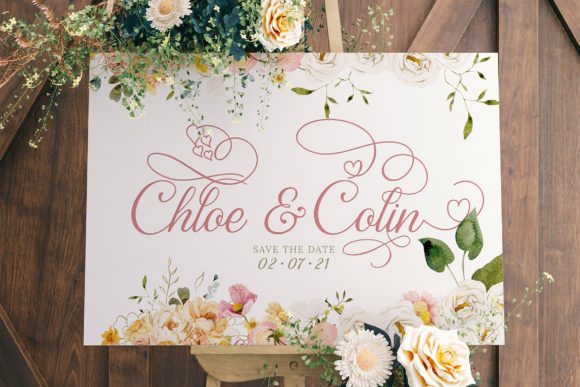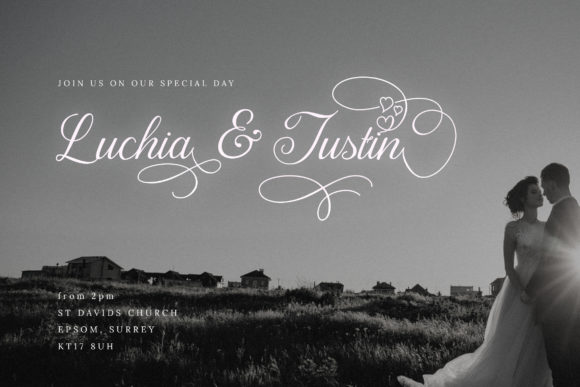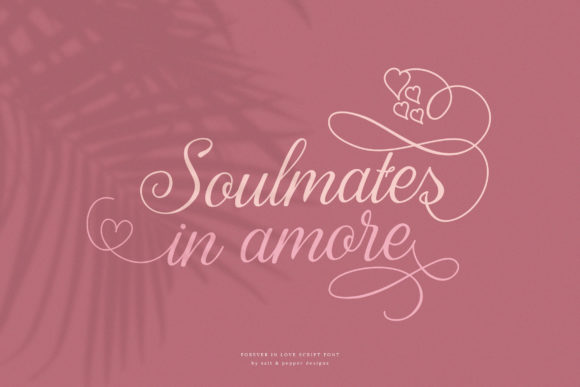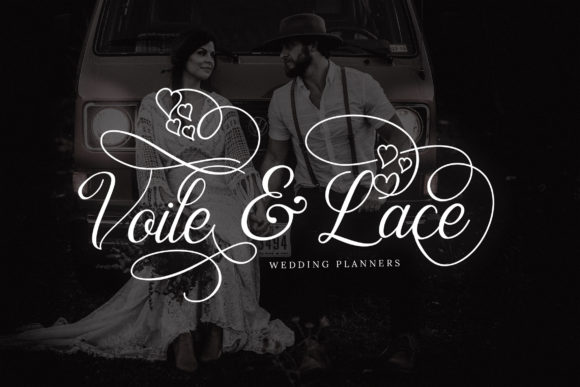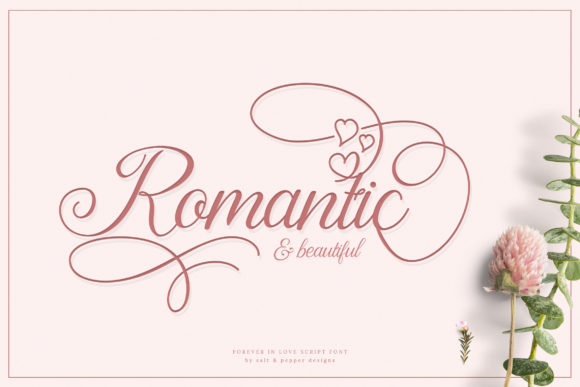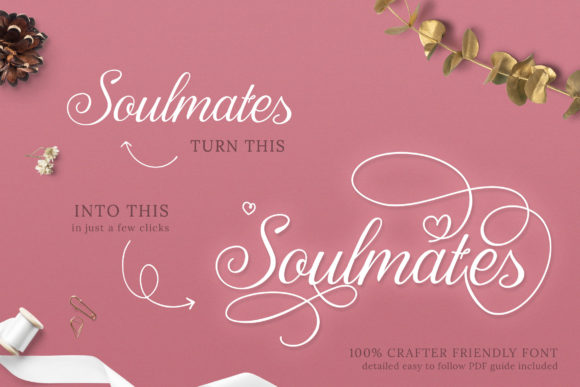
Love at First Sight: Unveiling the Forever in Love Font
Have you ever been lost in a creative moment, pouring your heart and soul into a project, and suddenly, the perfect font appears? It’s as if the universe is guiding your cursor to the perfect match. For many designers, this moment is a game-changer, and for those who’ve discovered the Forever in Love Font, it’s a match made in heaven.
The Forever in Love Font is a luxurious and well-balanced handwritten font, meticulously crafted to add a touch of elegance to any design. Its PUA encoding ensures that all glyphs and swashes are easily accessible, making it a valuable tool for designers looking to add a personal touch to their work. Whether you’re creating a wedding invitation, a romantic card, or a luxury brand’s logo, the Forever in Love Font is sure to leave a lasting impression.
Forever in Love Font Key Features
- Font Family: Forever in Love Font is a beautiful, elegant script font designed for romantic and elegant projects.
- Unique Characteristics: Features flowing connections, elegant swashes, and subtle flair, making it perfect for wedding invitations, love letters, and other romantic designs.
Designer Review: Forever in Love Font
As a designer, I was excited to try out the Forever in Love Font, and I must say it’s a unique addition to any typography collection. ✨ One thing that stands out is its elegant and whimsical feel, perfect for romantic or vintage-inspired designs. The font’s subtle imperfections and ornate details give it a charming, hand-crafted look that’s sure to capture attention.
However, there are some limitations to consider. ⚠️ The font’s complexity can make it difficult to use in smaller sizes or on low-resolution displays, as the intricate details may become lost or blurry. Additionally, the font’s irregularities can sometimes make it challenging to achieve precise alignment or formatting.
Overall, I would give the Forever in Love Font a solid 3.5 out of 5 stars. While it’s a beautiful and unique font, its limitations may make it less suitable for certain design applications. That being said, it’s still a great choice for designers looking to add a touch of romance or whimsy to their projects.
Pros:
- Unique, elegant design
- Perfect for romantic or vintage-inspired designs
- Subtle imperfections add to its charm
Cons:
- Complexity can be a challenge in smaller sizes or low-resolution displays
- Irregularities can make precise alignment and formatting difficult
To get the most out of the Forever in Love Font, use it for romantic and sentimental designs, such as:
- Anniversary and birthday cards
- Love quotes and poetry
The Forever in Love Font is perfect for any design that needs a touch of romance and elegance. Some common use cases include: